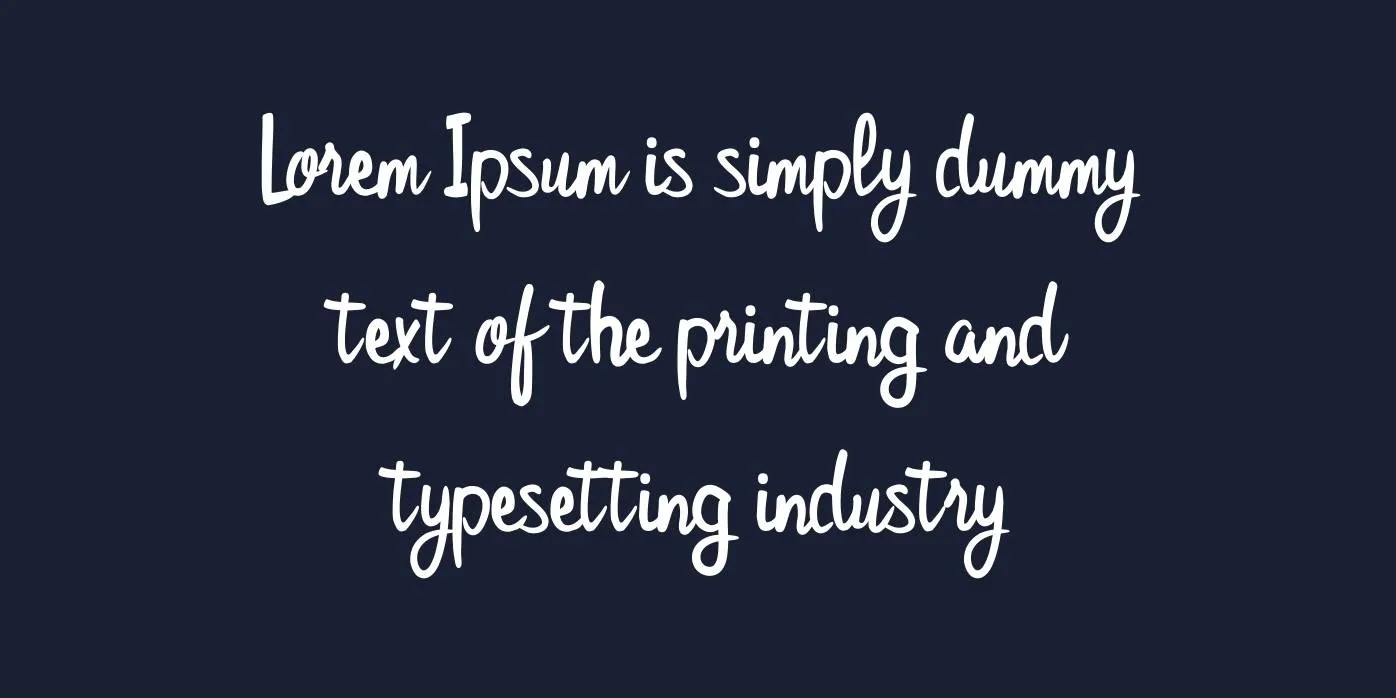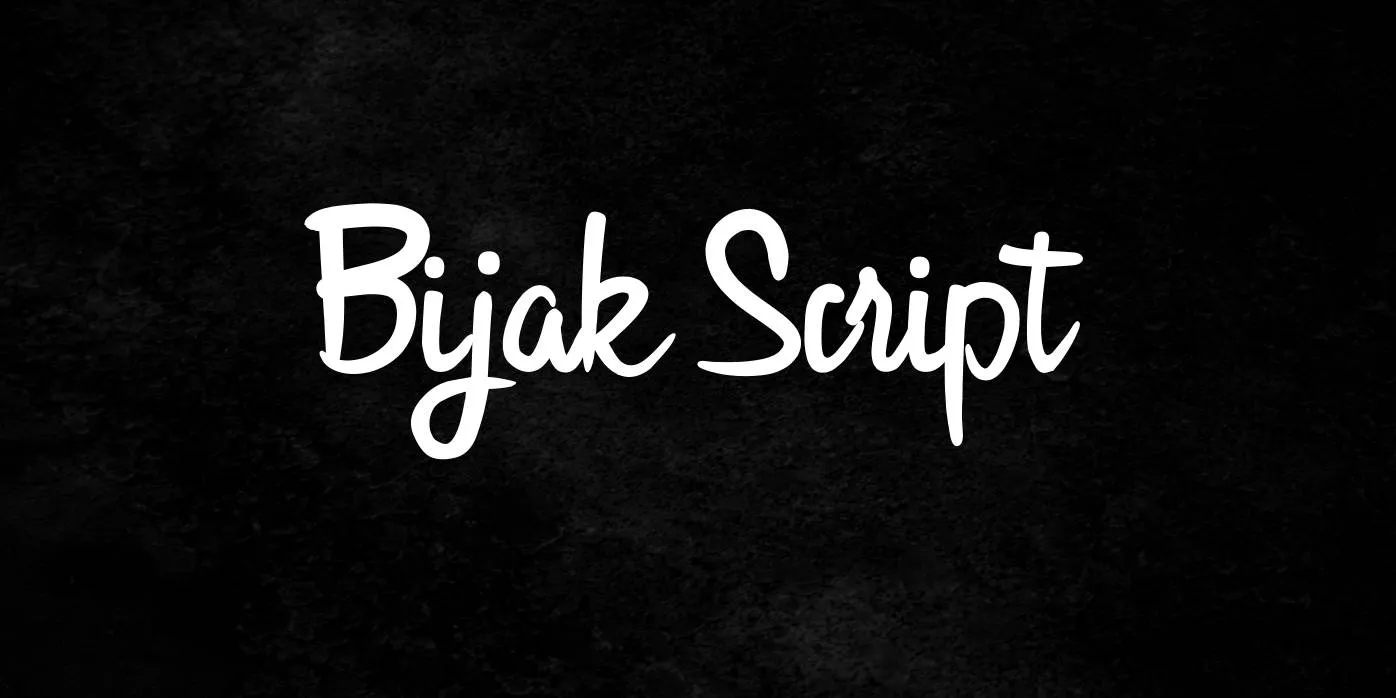
Bijak Script Font
Khurasan designed this texture. Bijak Script Font is a handwritten typeface. The family of this font contains only one style. The lonely girl font is a glorious font for pairing with this typeface.